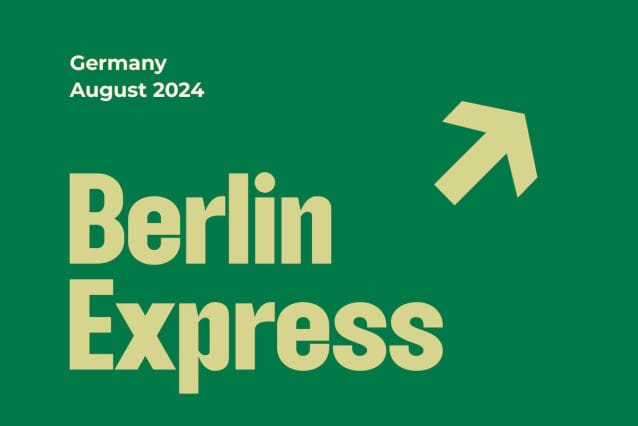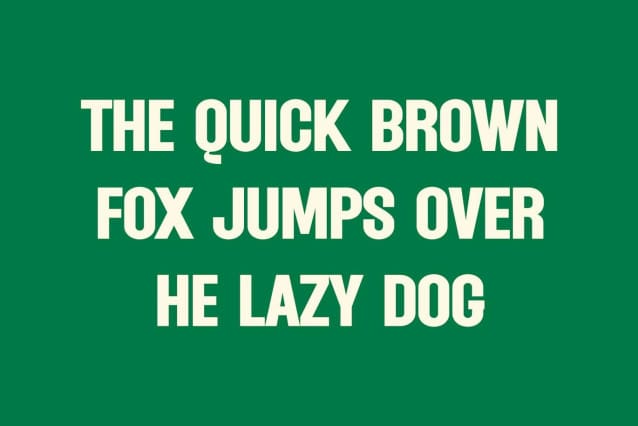
Qilandia Font
Qilandia Font, a modern sans serif font with an elegant style, perfect for brands, logos, invitations, magazines, product packaging, etc.